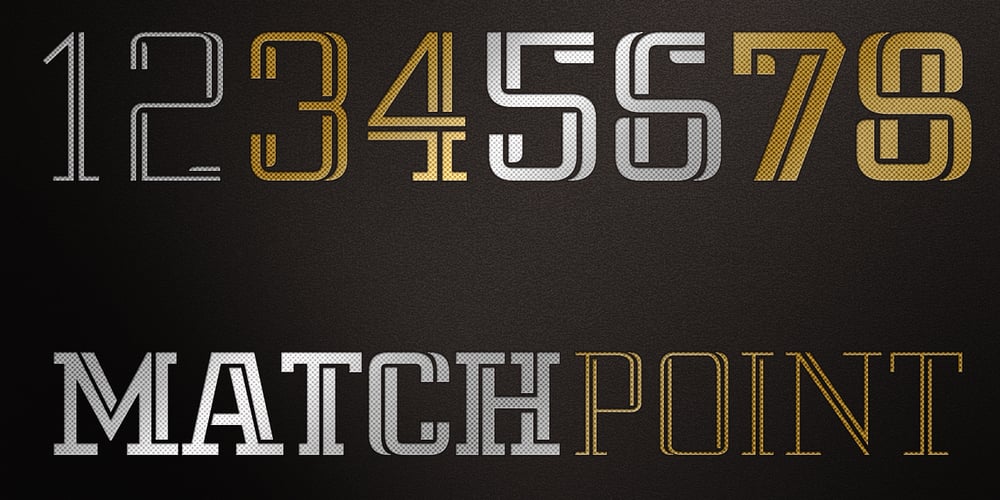
Matchpoint
Matchpoint font
Matchpoint Font Family was designed by Bruno Sellés and published by Vasava Fonts. Matchpoint contains 4 styles and family package options. MatchPoint is a sports inspired typeface. It has been designed to look gorgeous on football jerseys or scoreboards and it fits into a wide range of sports, from football to soccer or hockey.